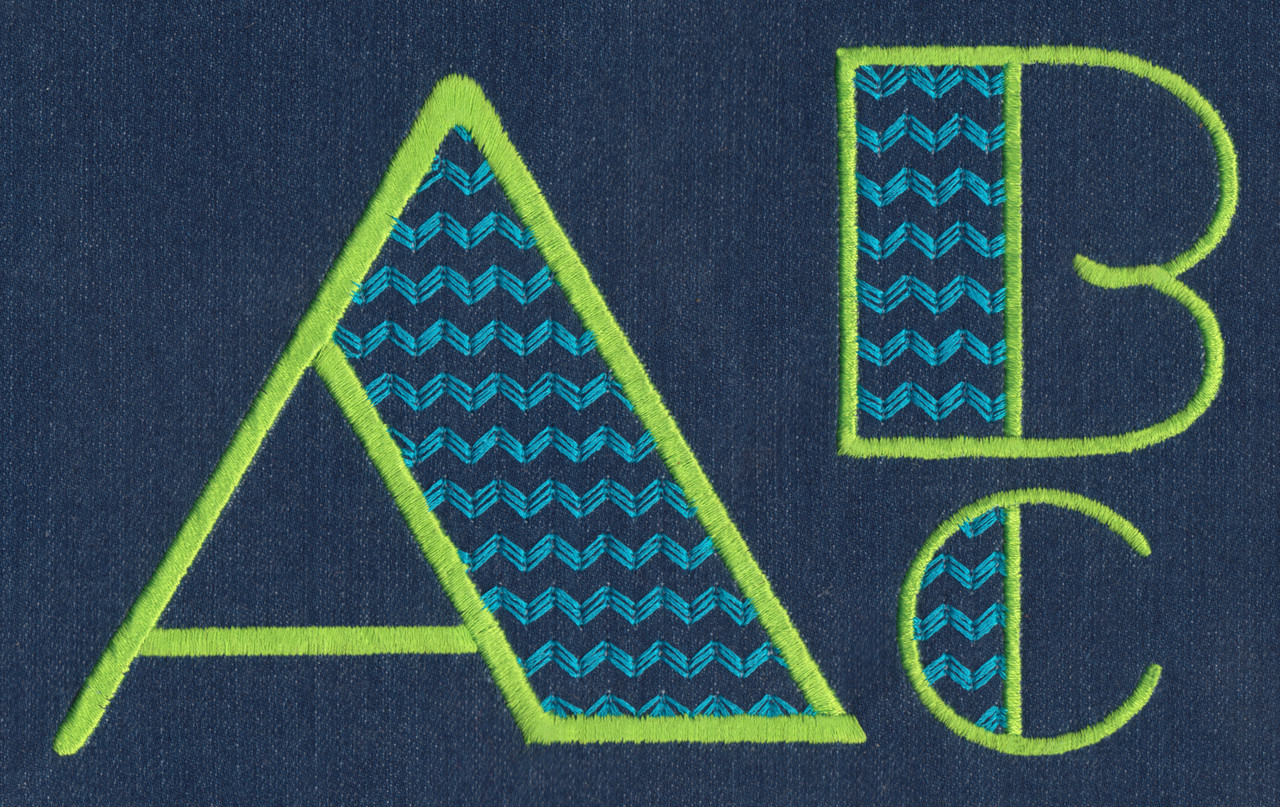
728 Chevron Broadway Font
728 Chevron Broadway Font comes in the following sizes: 1", 1.5", 2", 2.5", 3", 3.5", 4", 4.5", 5", 5.5" & 6". Height is based on the capital "A" with many uppercase and lowercase letters being slightly taller or shorter than the base height-- and most letters in the set are wider than they are tall as well. All sizes are included in the purchase price and include uppercase, lowercase, numbers and ten punctuation marks.
All characters are set up for two-color finish and include a set/trim stitch for adding applique fabric under the chevron stitches. The Fill/Applique area is stitched in an Chevron Fill Motif Stitch that stitches out in an open lattice stitch fashion. The Fill/Applique area is overcast with Satin lines -- the Satin Lines also complete the other parts of the letter. On the 5.5" and 6" sizes the overcast is in SatinFill Stitch.